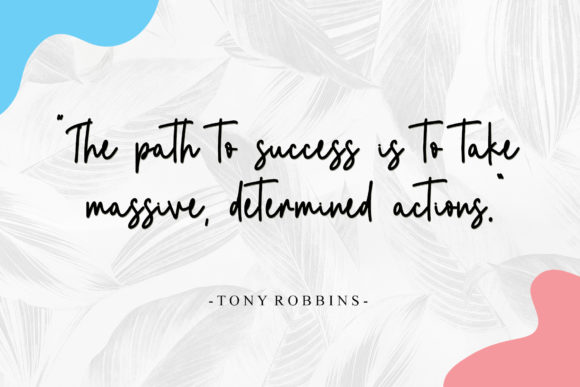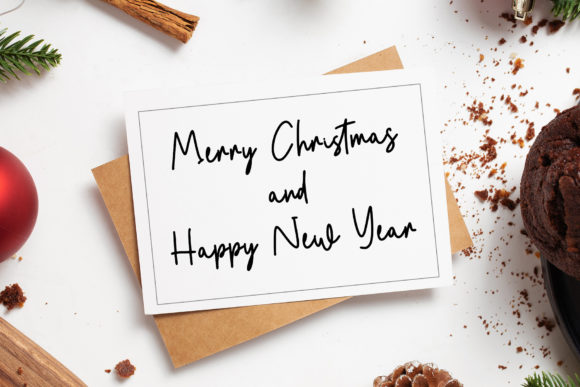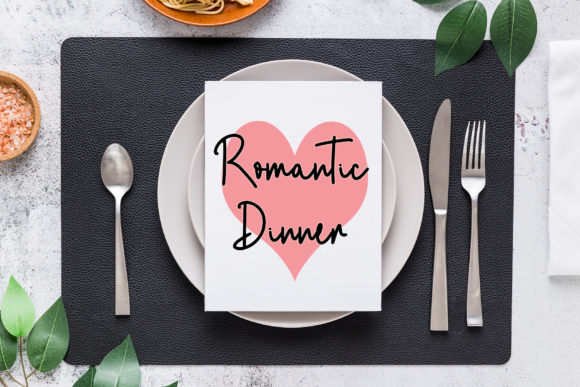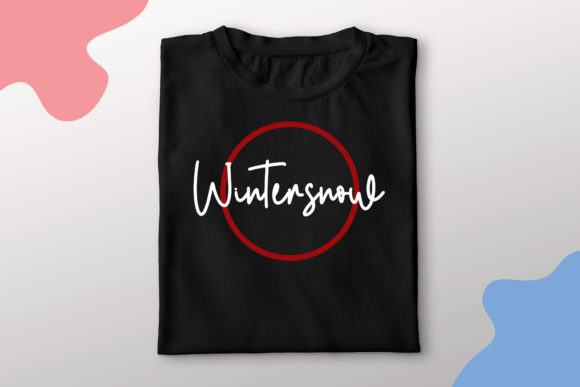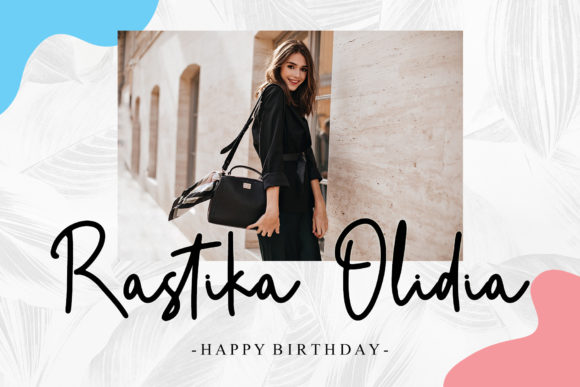
About Bestworde Font
Bestworde is a simple and quirky looking handwritten font. This adaptable font will look great on a variety of design ideas. It will add a fun and friendly touch to each of your projects!